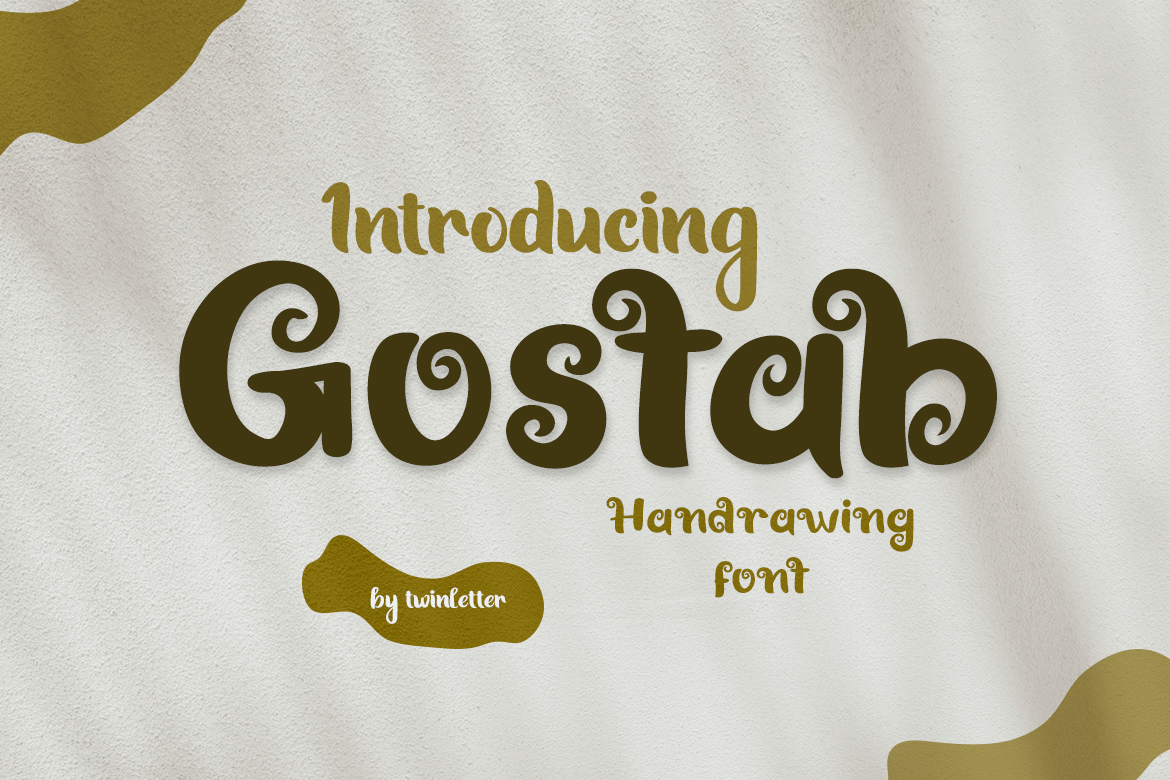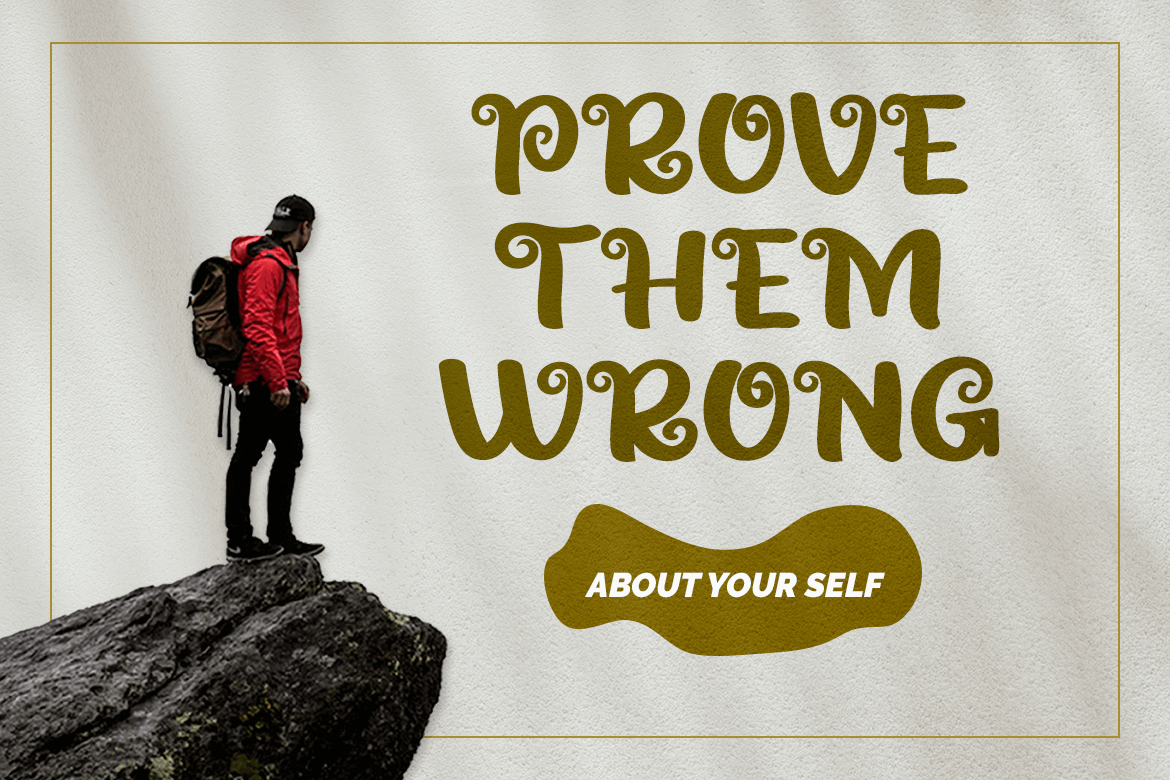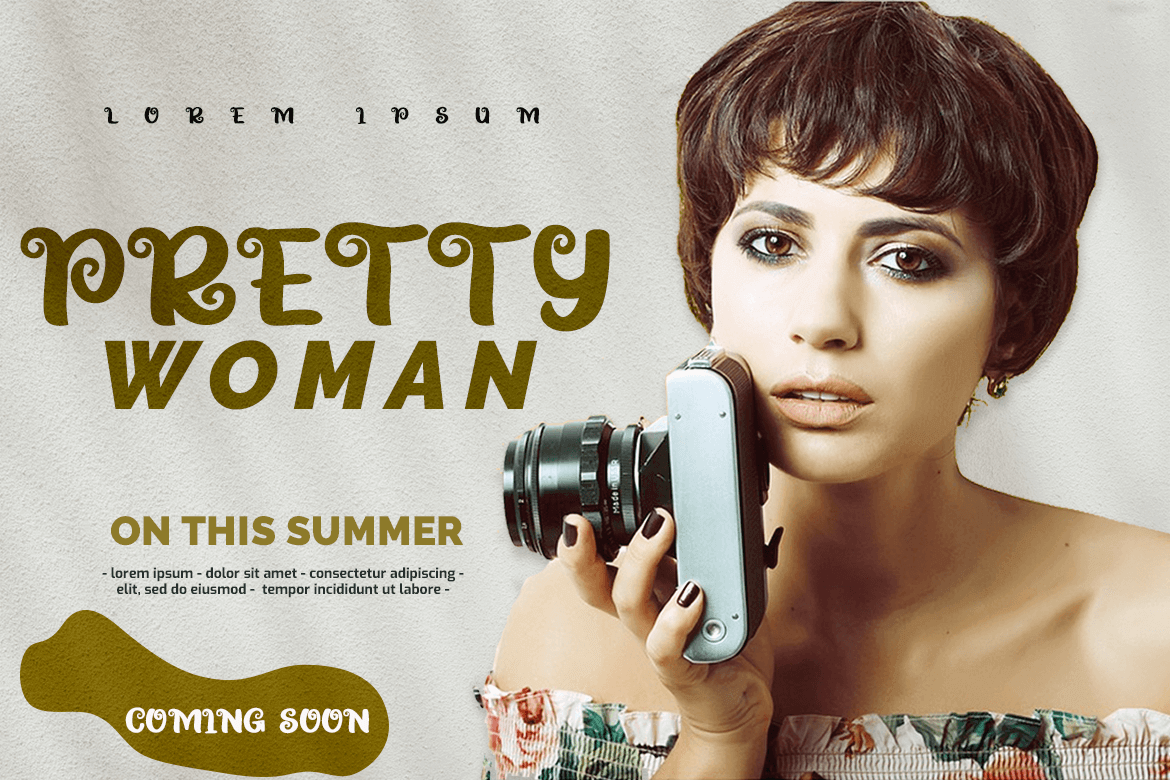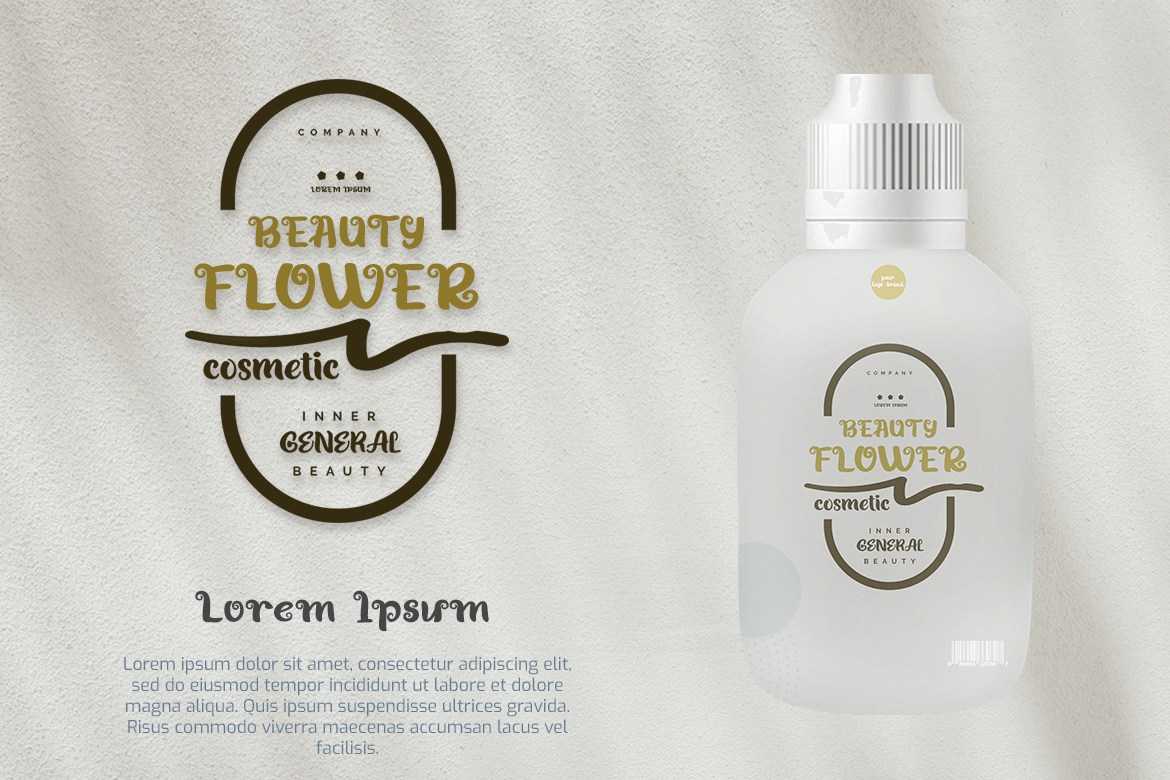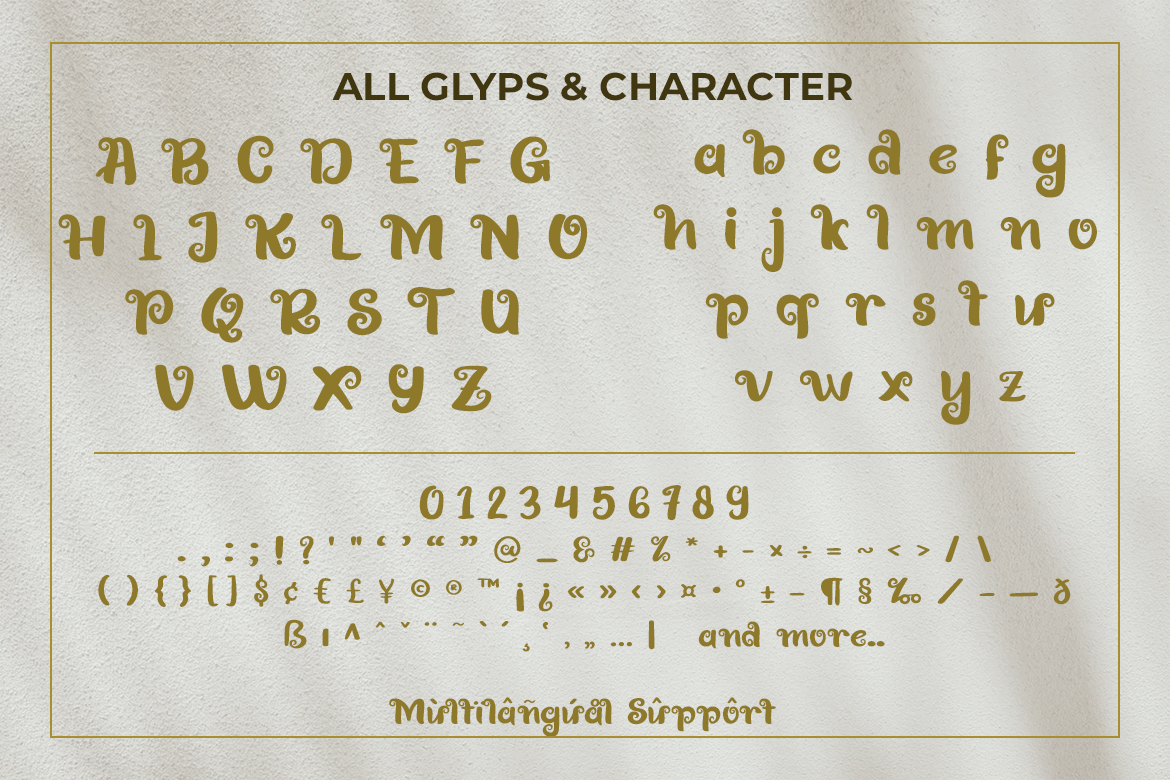
- Gostab – Handwriting Font
Gostab is a unique and flowing handwritten font, created with the help of a brush pen. Fall in love with its incredibly versatile style and use it to create gorgeous wedding invitations, beautiful stationary art, eye-catching social media posts, and much more!